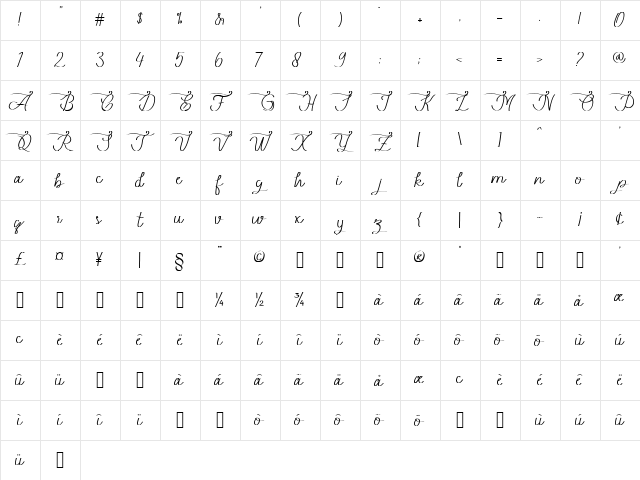
Beautylope Handraw
| Style | Handraw |
| Designer | Dedi Priadi |
Design Context for Beautylope Typeface
Beautylope flows with the natural rhythm of handwritten lettering, making it ideal for designs that call for warmth and personal expression.
Font Pairing: Combine Beautylope with a simple geometric sans for maximum contrast — the tension between flowing curves and clean structure is a classic typographic pairing.
Pro Tip: Pair Beautylope with a clean sans-serif for supporting text. The contrast between fluid script and geometric structure creates an elegant typographic hierarchy.